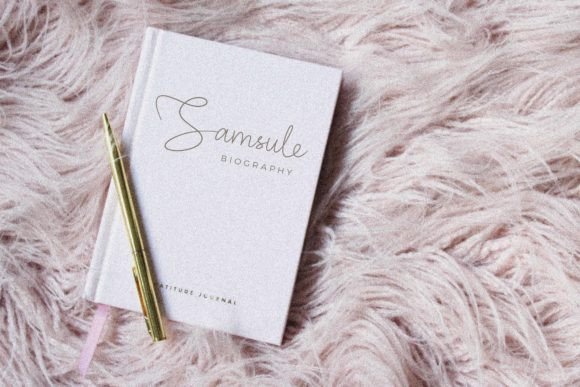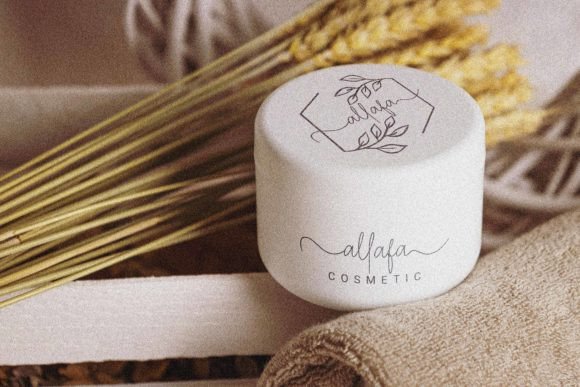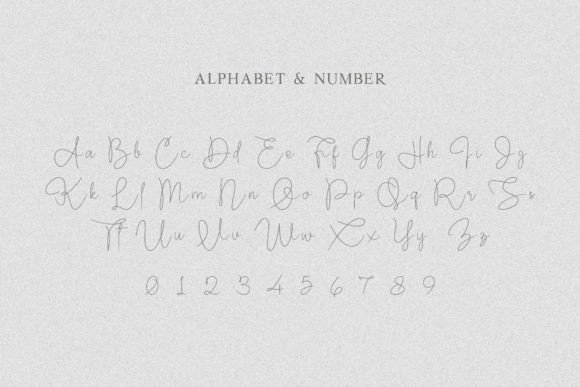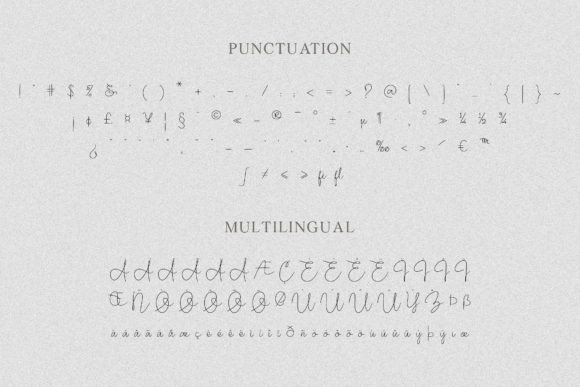
Scriptone Font
About Scriptone Font
Scriptone is a sweet and delicate handwritten font. Dainty and elegant, this font will be ideal for writing wedding invitations, cards, or any other design that may need a romantic, personalized touch! Scriptone is PUA encoded which means you can access all the glyphs and ligatures with ease!